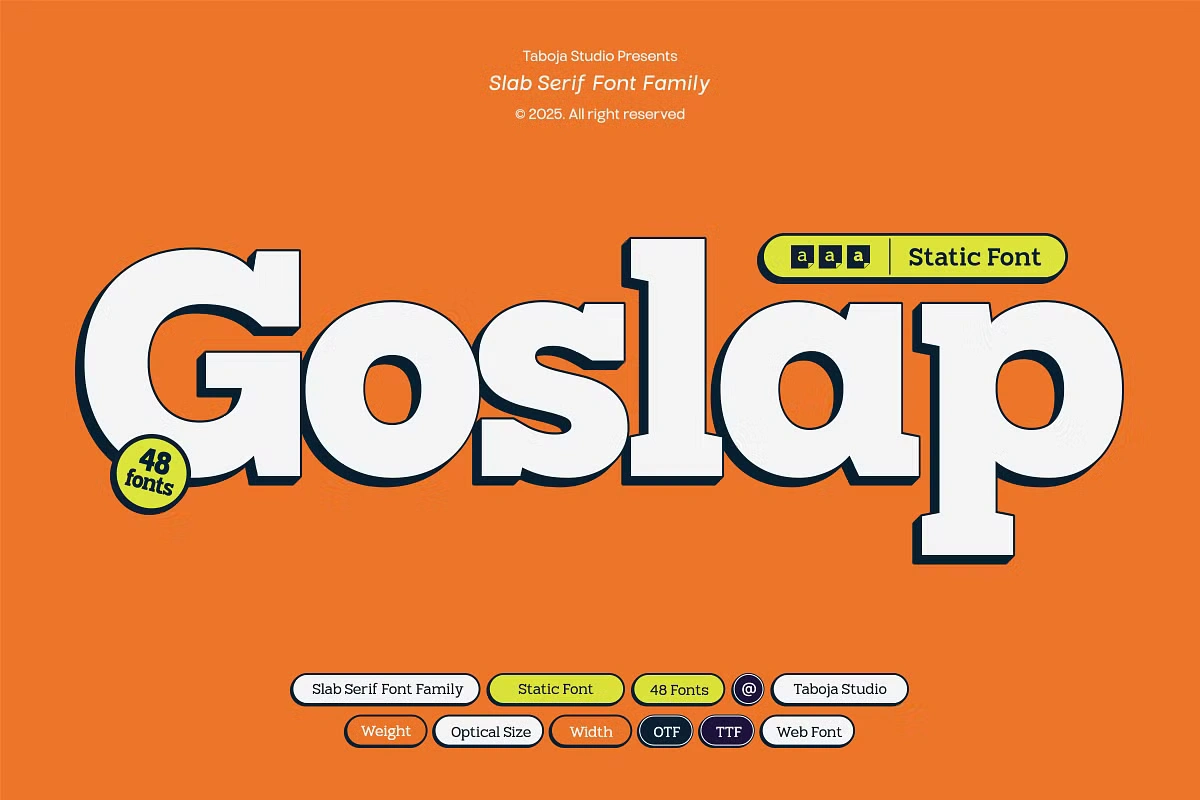
TBJ Goslap is a modern slab serif font family that strikes a perfect balance between strength, flexibility, and distinct character. Designed with precision, this font features nine unique styles, allowing designers to experiment with different thicknesses and appearances. Its versatility makes it an excellent choice for a wide range of design projects, from branding to digital interfaces.
Goslap font family stands out with its bold and striking personality. The trapezoidal corners of its sturdy serifs give it a contemporary and professional look, making it ideal for editorial layouts, print materials, and digital content. Whether used for headlines or body text, this font ensures a dynamic yet polished aesthetic that enhances readability and visual appeal.
Beyond its strong visual impact, Goslap offers extensive multilingual support, alternative fonts, and variable font options. These features empower designers with greater creative freedom, making it easier to craft expressive and engaging typography. With its blend of modern elegance and functional adaptability, TBJ Goslap is a must-have for any design toolkit.